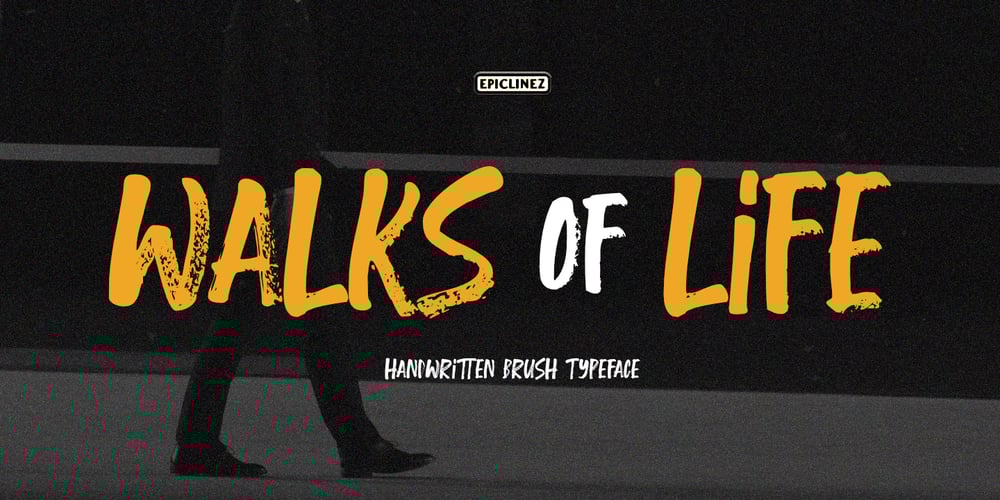
Walks Of Life Font Family was designed by Aldy Sidik and published by Epiclinez. Walks Of Life contains 1 styles and family package options. Walks Of Life is a handwritten brush typeface. Carefully handcrafted to straight away grab the attention of the viewers. Very cool if use for logos, posters, headlines, branding, apparels, etc.